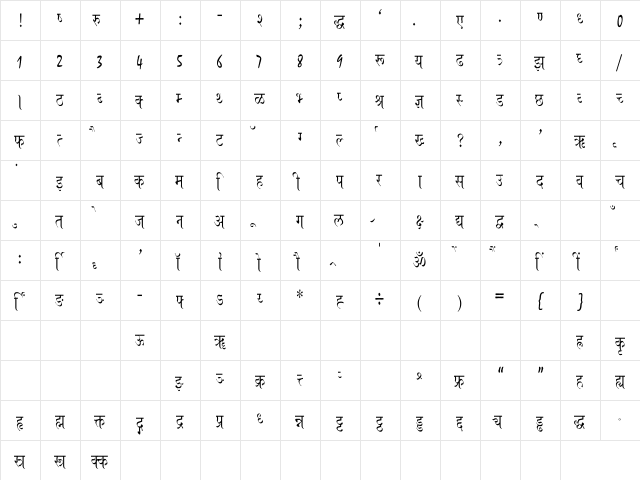
Ajay Normal Condensed Regular
Design Context for Ajay Normal Condensed Typeface
Ajay Normal Condensed is a composed and adaptable typeface that performs quietly and consistently across a wide range of design contexts. The condensed width makes it efficient for tight spaces without sacrificing legibility.